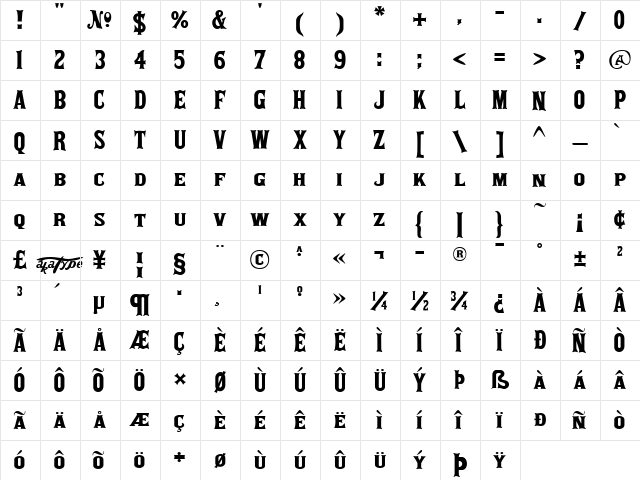
akaPosse Regular
| Foundry | James Milligan |
| Designer | James Milligan |
Design Context for akaPosse Typeface
akaPosse offers clean, dependable letterforms without strong stylistic allegiance, making it a practical choice for designers who need flexibility.